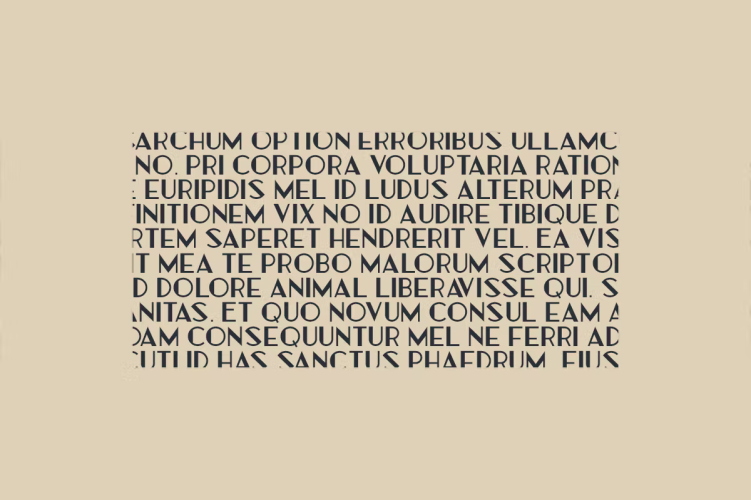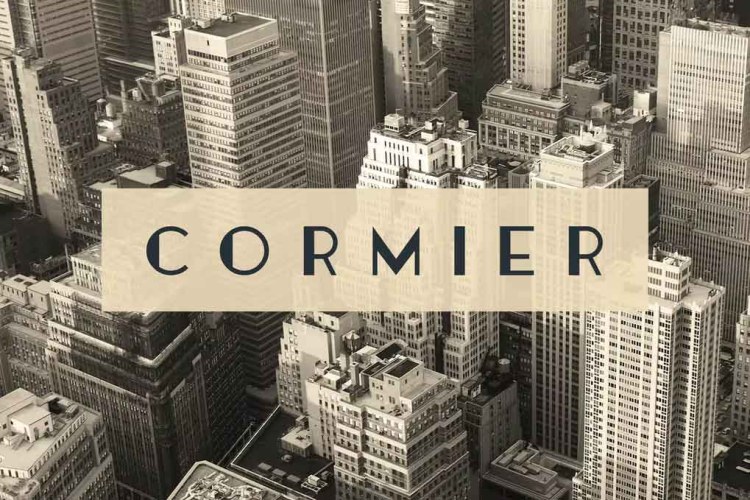
Cormier Font
Cormier is an Art Deco themed typeface in 3 styles.
Cormier Font is a Serif Fonts font that brings a professional and versatile look to your projects. Cormier is an Art Deco themed typeface in 3 styles.